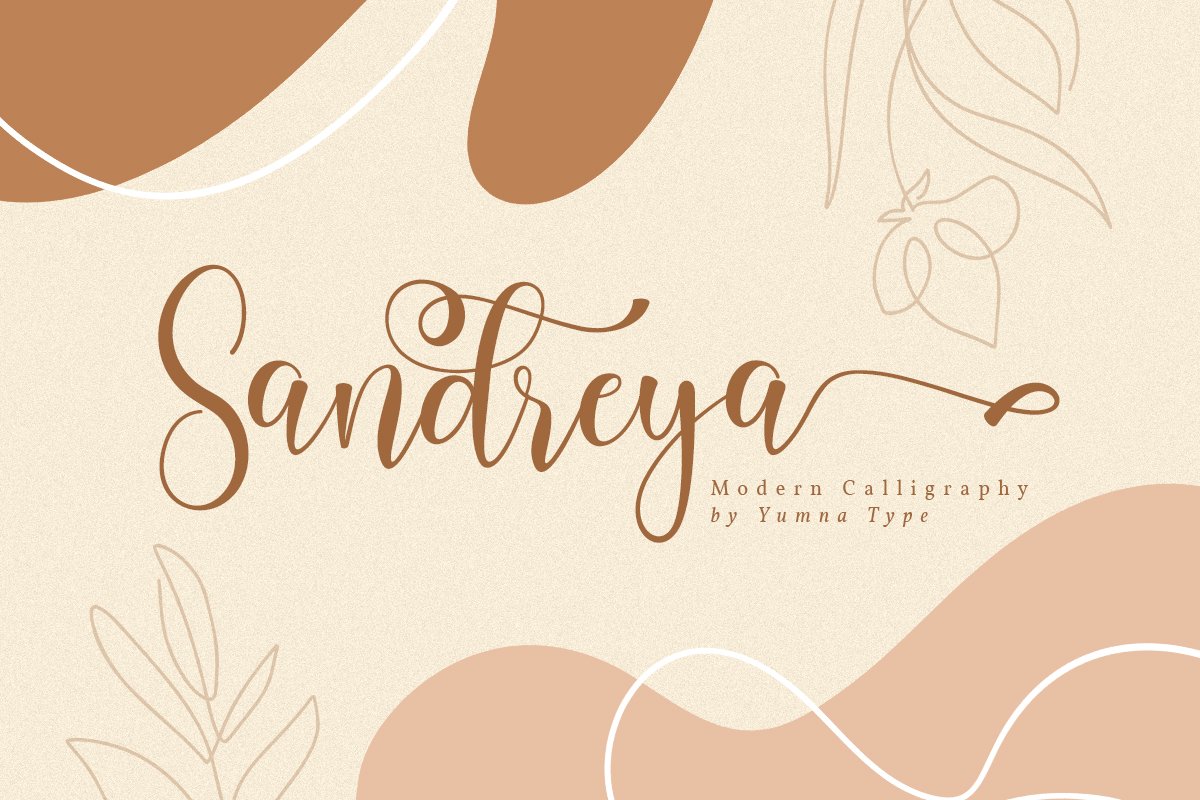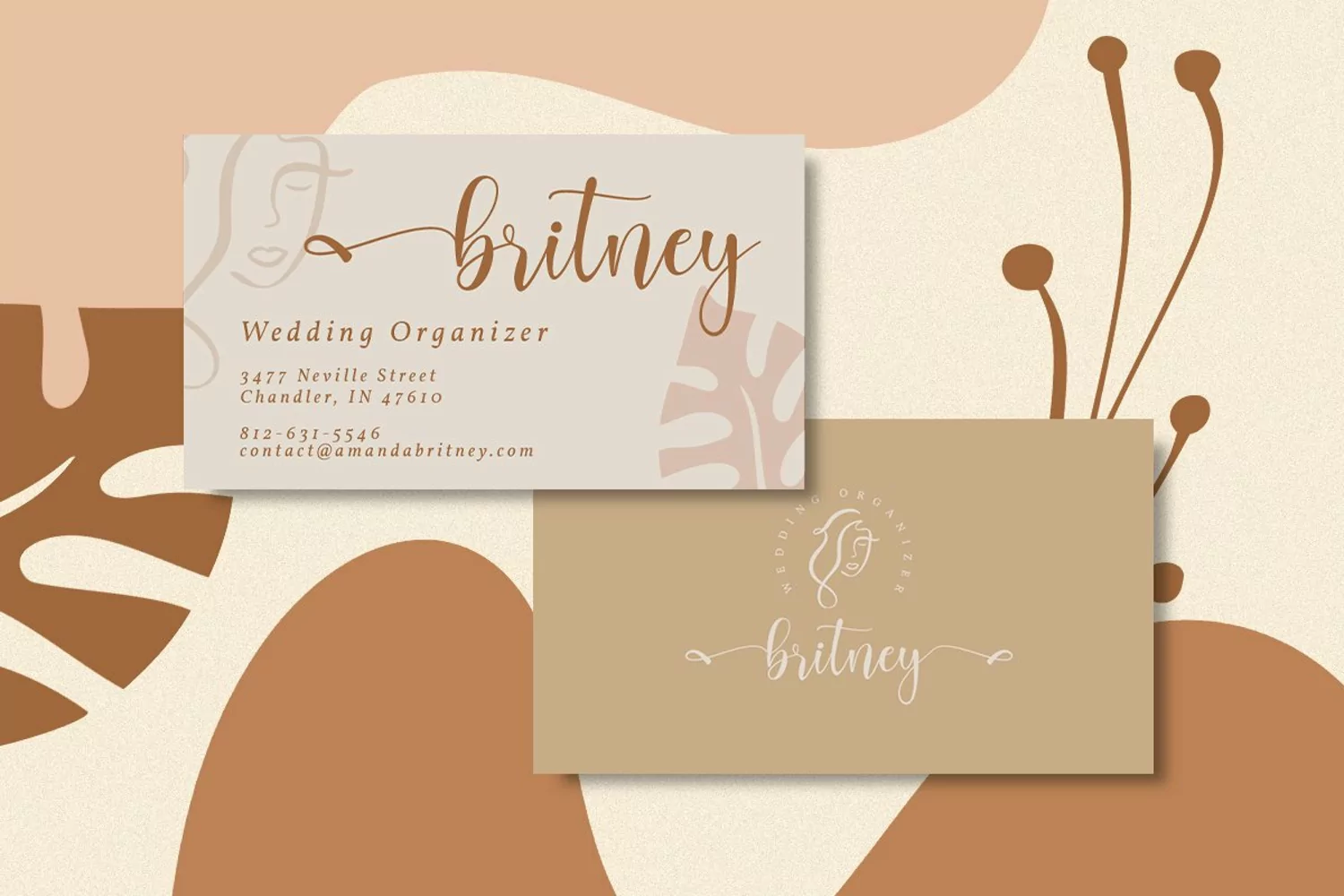
Say hello to Sandreya Script.
Sandreya is a beautiful and modern script.
It brings a beautiful and modern typeface that best used for weddings, branding, logotype, and quotes.:
- Beautiful Alternates + Swashes
- Numerals and Punctuation
- Beginning Swash and Ending Swashes (a-z)